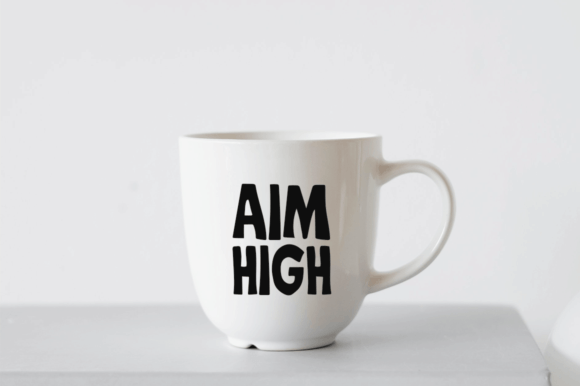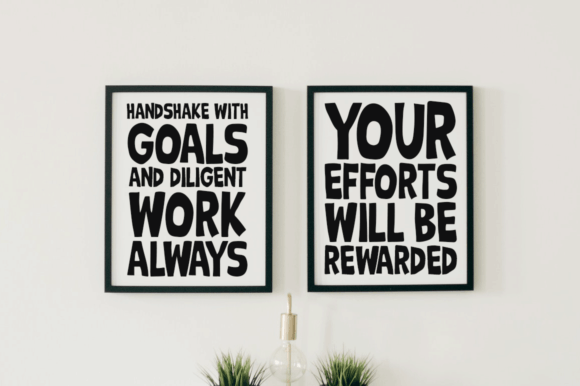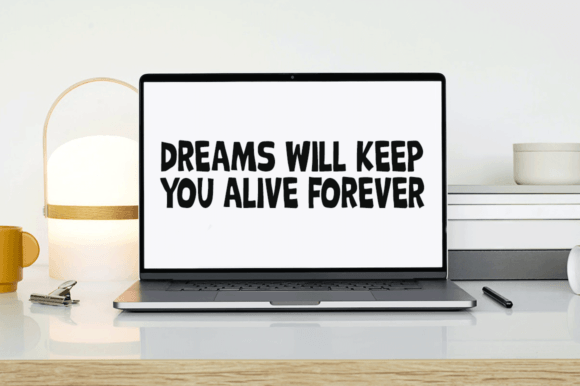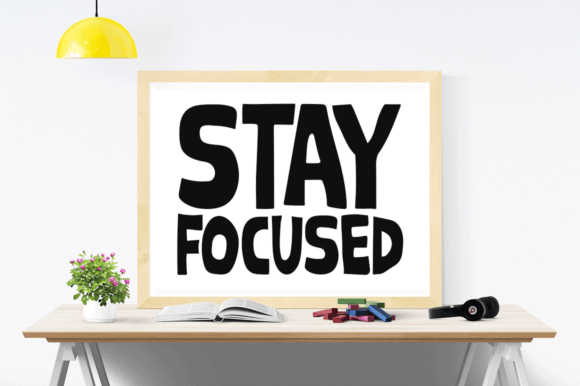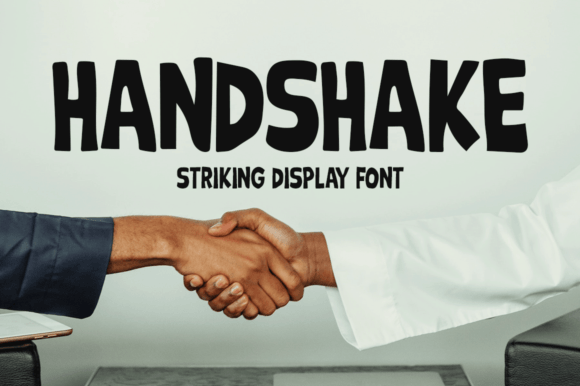
Introducing Handshake Font: The Ultimate Display Font for Creative Projects
Are you a designer, crafty enthusiast, or simply someone who loves to create visually stunning content? Look no further! In this article, we’ll dive into the world of Handshake Font, a striking display font that’s perfect for a wide range of creative projects. From stationery to logos, t-shirts to posters, Handshake Font is the perfect addition to your design toolkit.
What is Handshake Font?
Handshake Font is a bold, eye-catching display font designed to make a statement. Its unique, hand-drawn style gives it a personal touch that’s sure to capture the attention of your audience. With its clean lines, elegant curves, and distinctive flair, Handshake Font is the perfect choice for anyone looking to add a touch of sophistication and style to their designs.
What Can I Use Handshake Font For?
The versatility of Handshake Font is one of its standout features. This incredible font can be used for a wide range of creative projects, including:
- Stationery: Add a touch of elegance to your business cards, letterheads, and envelopes.
- Logos: Create a lasting impression with a bold, memorable logo that showcases your brand’s personality.
- T-shirts and apparel: Make your designs stand out on t-shirts, hoodies, and other clothing items.
- Paper and print designs: Add a touch of sophistication to your brochures, flyers, and posters.
- Website headers: Make a bold statement with your website’s header, setting the tone for your online presence.
- Photo frames and art: Add a touch of elegance to your photo frames, art prints, and other visual displays.
- Flyers and music covers: Create eye-catching flyers and music covers that grab attention.
- Posters and image sliders: Make your posters and image sliders stand out with Handshake Font’s bold, striking style.
Why Choose Handshake Font?
So, what sets Handshake Font apart from other display fonts on the market? Here are just a few reasons why designers and crafters love this incredible font:
- Unique style: Handshake Font’s hand-drawn style gives it a distinctive, one-of-a-kind look that’s sure to turn heads.
- Highly versatile: From formal to informal, Handshake Font can be used for a wide range of projects and design styles.
- Easy to read: Despite its bold style, Handshake Font is surprisingly easy to read, making it perfect for headlines, titles, and short paragraphs.
- Scalable: Handshake Font looks great at any size, from small captions to large headlines.
Tips for Using Handshake Font
To get the most out of Handshake Font, here are a few tips to keep in mind:
- Use it sparingly: Handshake Font is bold and eye-catching, so use it sparingly to avoid overwhelming your design.
- Pair it with contrasting fonts: Pair Handshake Font with contrasting fonts to create visual interest and add depth to your design.
- Experiment with colors: Handshake Font looks great in a range of colors, so don’t be afraid to experiment and find the perfect hue for your design.